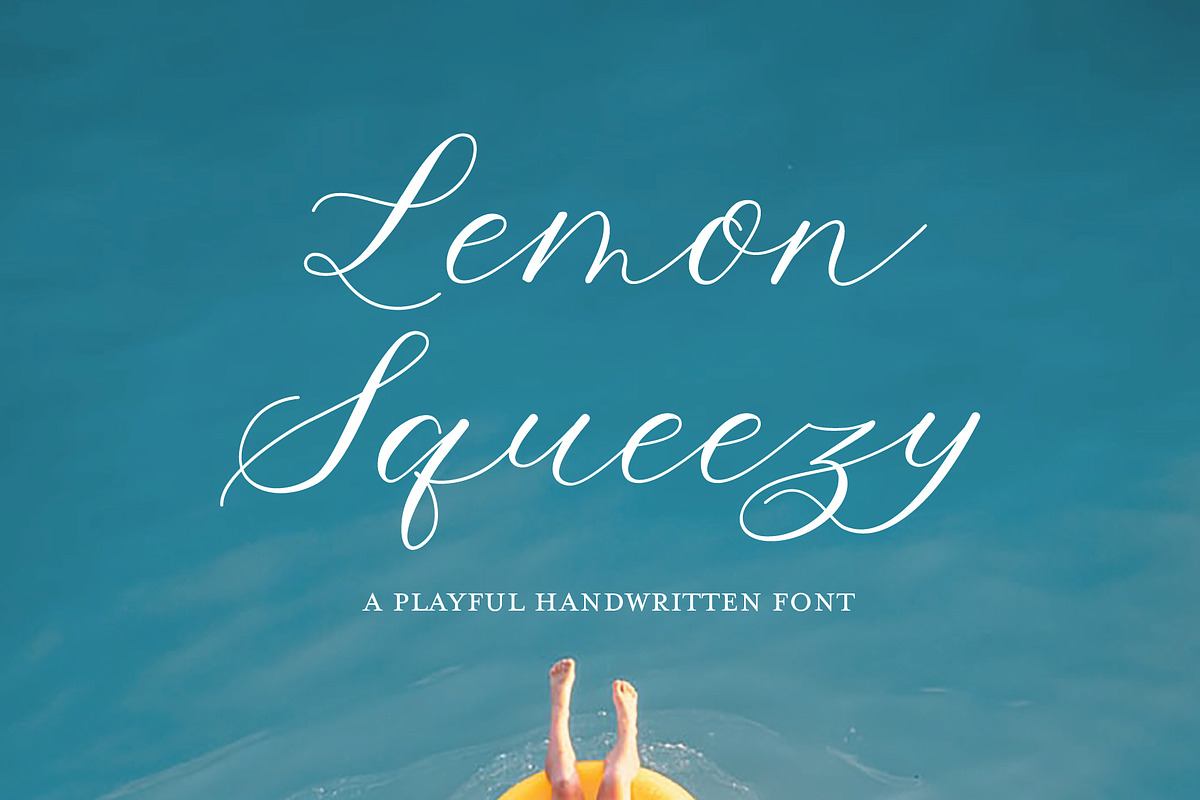
Lemon Squeezy Calligraphy Font Free Download
Lemon Squeezy Calligraphy Font Free Download is a delightful and playful script typeface that brings a fresh, handwritten charm to your design projects. Inspired by the carefree days of summer and the simple joys of homemade lemonade, this font exudes warmth and nostalgia. It's perfect for wedding invitations, branding, social media graphics, packaging, and any project that calls for a personal, handcrafted touch.
Designed with attention to detail, Lemon Squeezy offers smooth, flowing letterforms that mimic natural handwriting. Its versatility allows it to pair well with both serif and sans-serif fonts, making it a valuable addition to your font library. Whether you're creating heartfelt greeting cards or stylish logos, this font adds a unique and friendly flair to your designs.